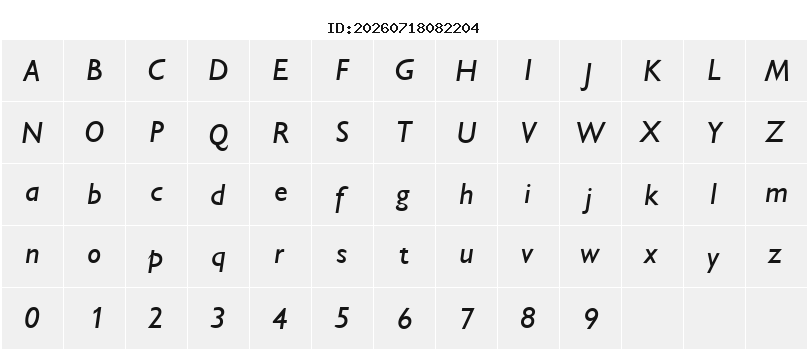
• Font Name: ChantillyM
• Font ID: Altsys Fontographer 3.5 ChantillyM Italic
• Full Font Name: ChantillyM Italic
• Version: Altsys Fontographer 3.5 20.02.1994
• PostScript Name: ChantillyM-MediumItalic
About ChantillyM.ttf
ChantillyM.ttf is a modern, elegant sans-serif font designed for ultimate readability and visual harmony. Perfect for branding, headlines, web design, and print materials.